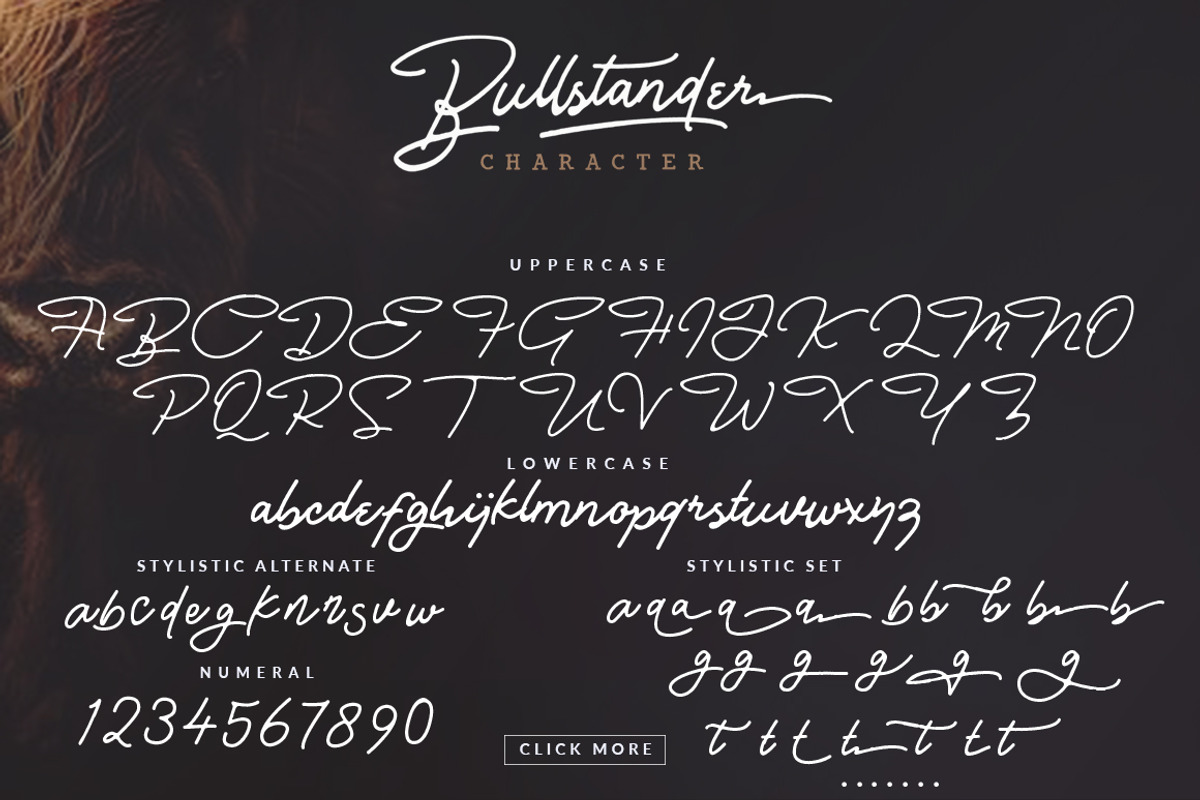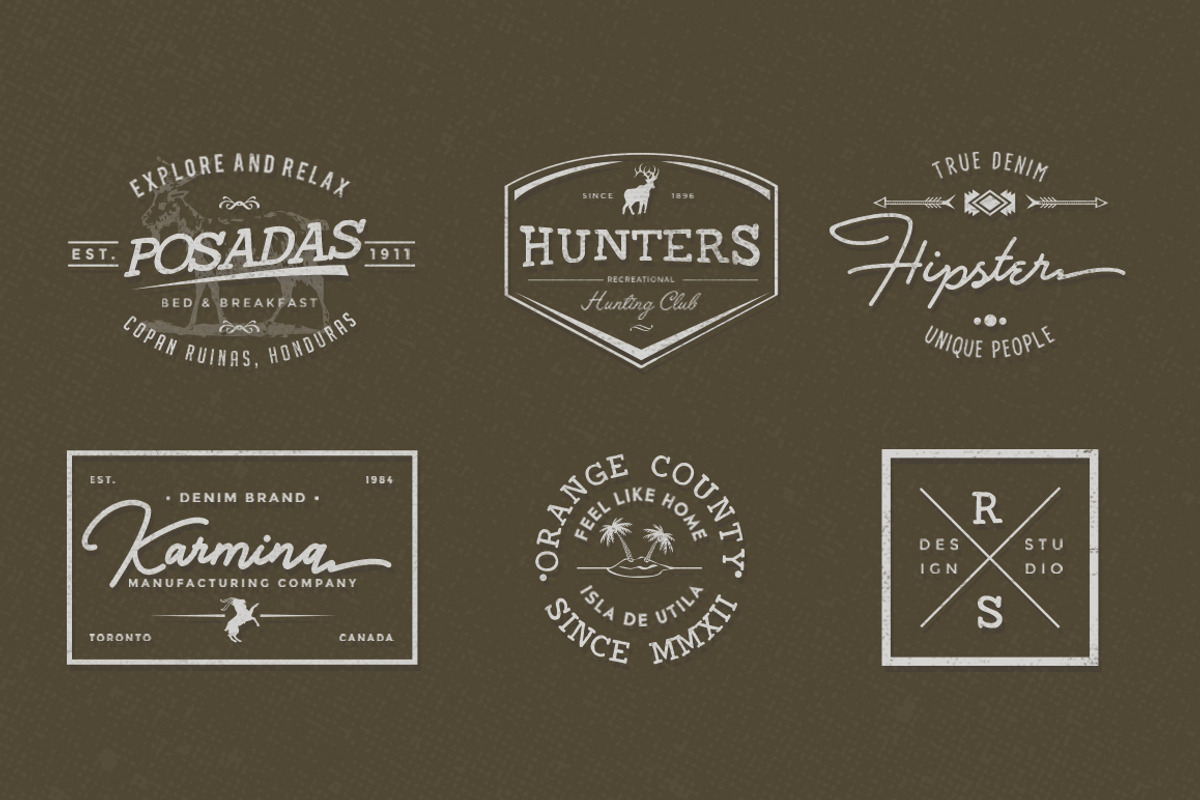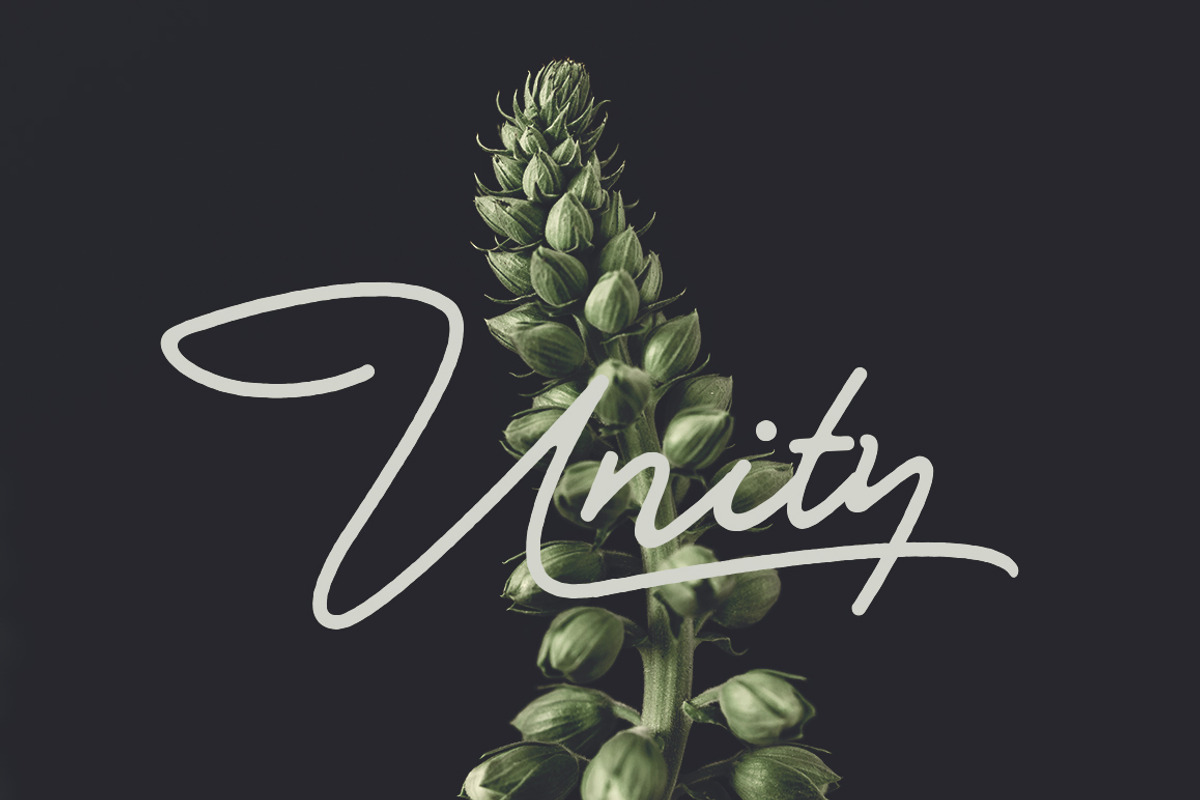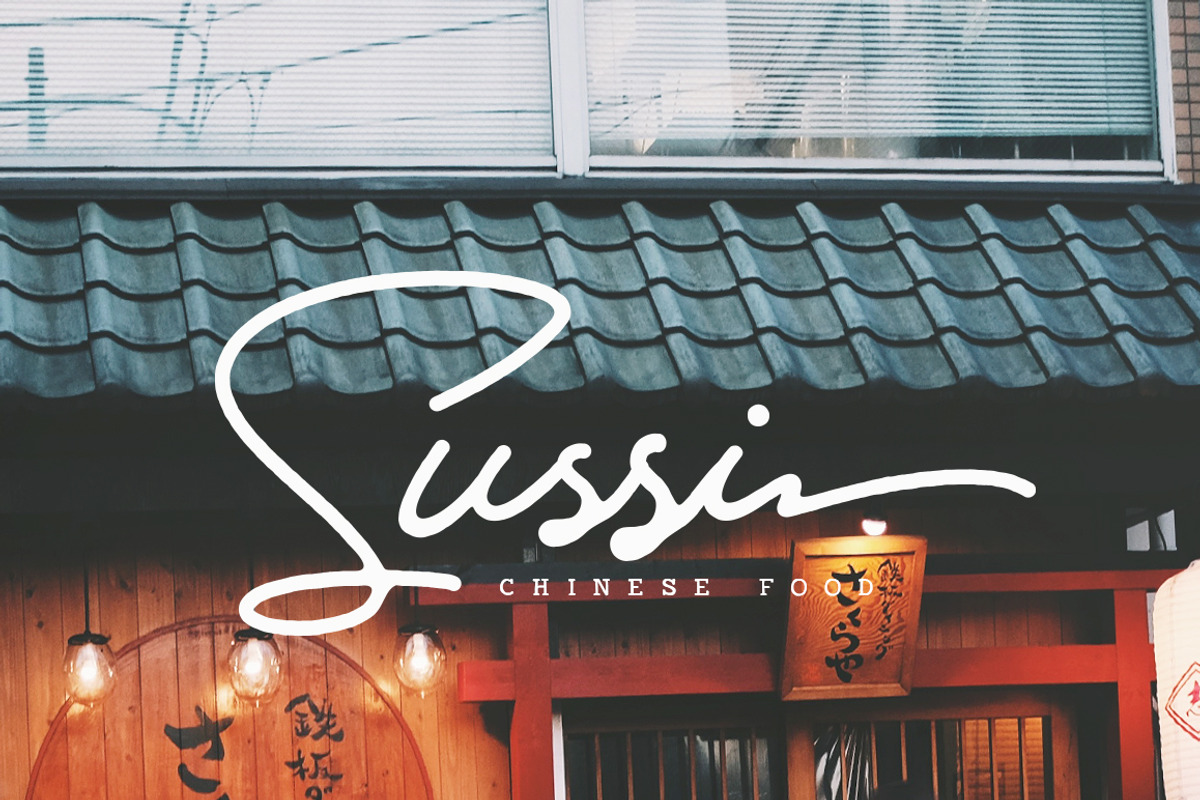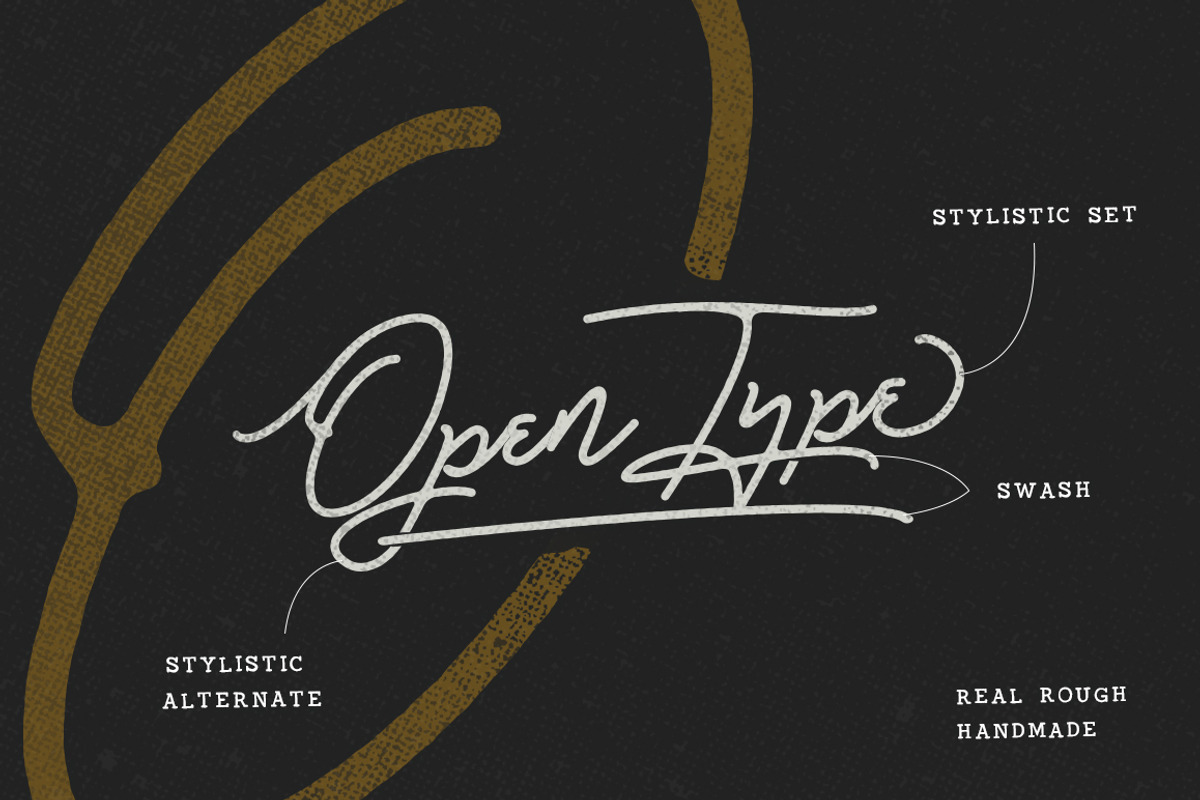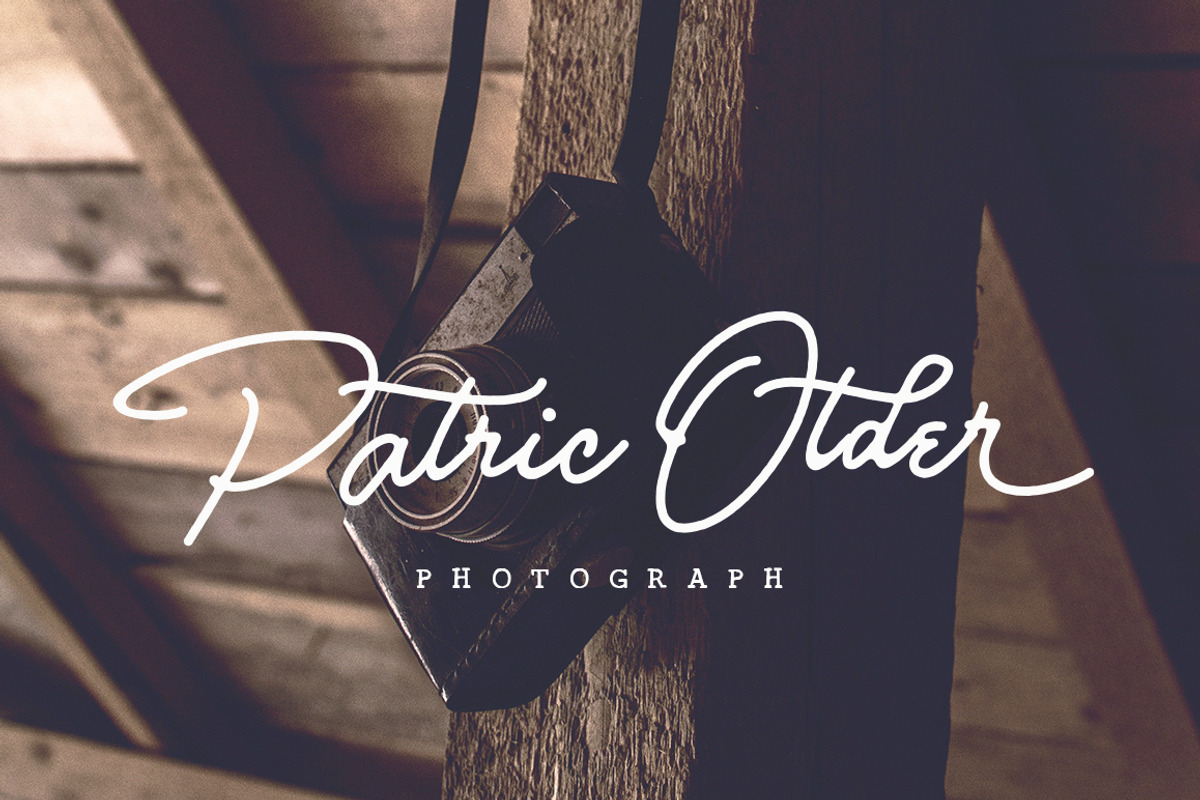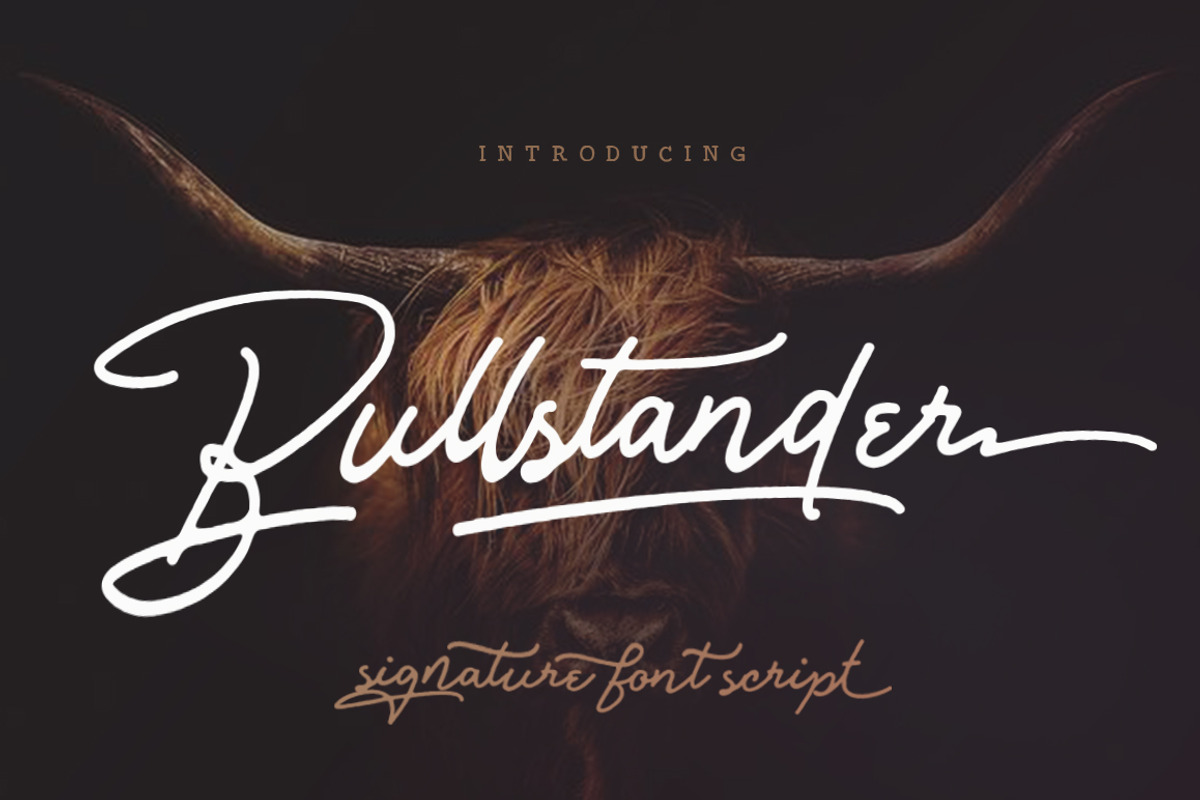
Bullstander 6 Font Set - 60% OFF by Dirtyline Studio is a font selected for branding, posters, packaging, typography.
- Bullstander SLAB Caps : A Rough SLAB All Caps with 230 Glyphs.
- Bullstander Swash
- Bullstander SLAB Caps : A Rough SLAB All Caps with 230 Glyphs.
- Bullstander Swash
- Basic Latin A-Z and a-z
- Stylistic Set
Bullstander 6 Font Set - 60% OFF by Dirtyline Studio fits naturally into Branding, posters, packaging, typography.